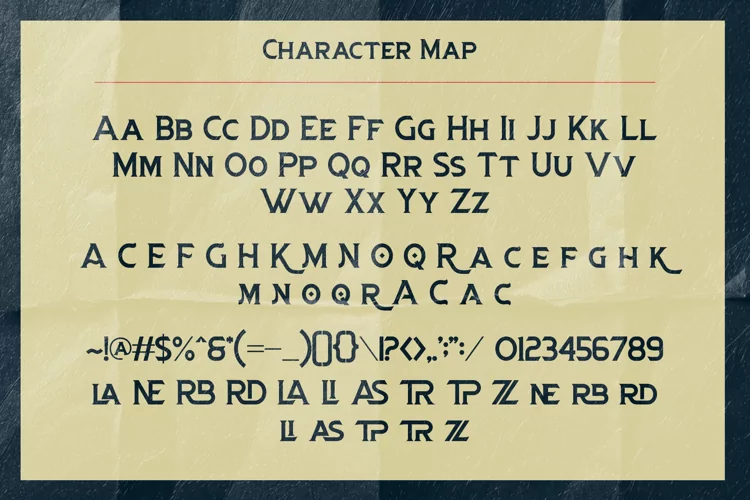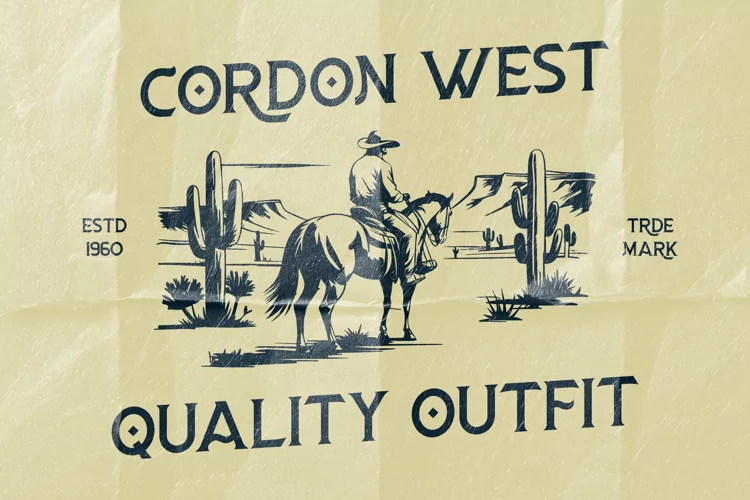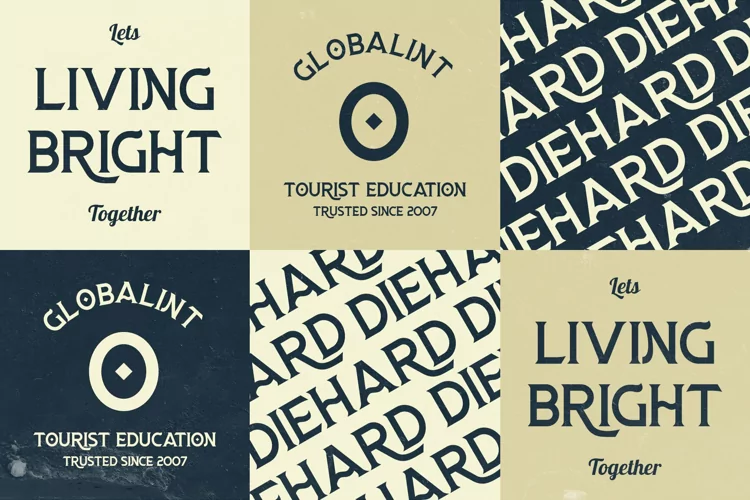
Forence is a serif font with a vintage feel and a modern twist. It’s full of alternate characters and stylish ligatures that make your designs stand out. Perfect for logos, posters, or invitations, it adds that timeless touch everyone loves.
Forence Serif Font